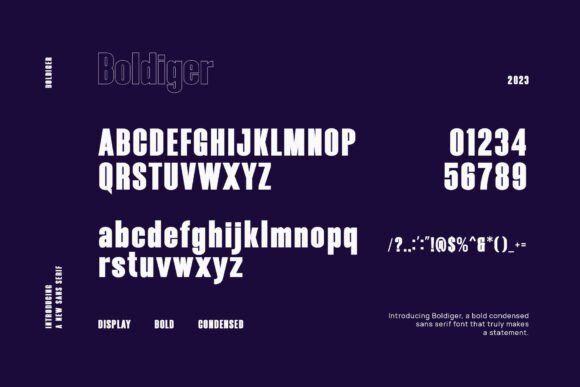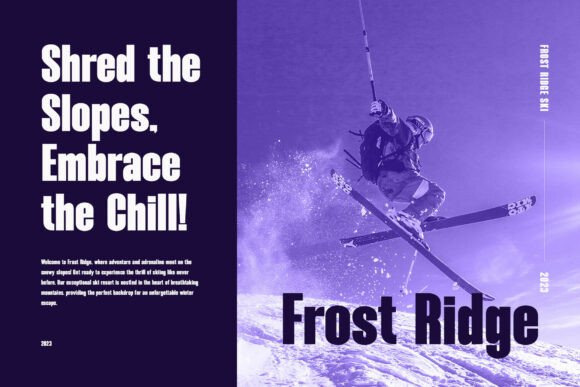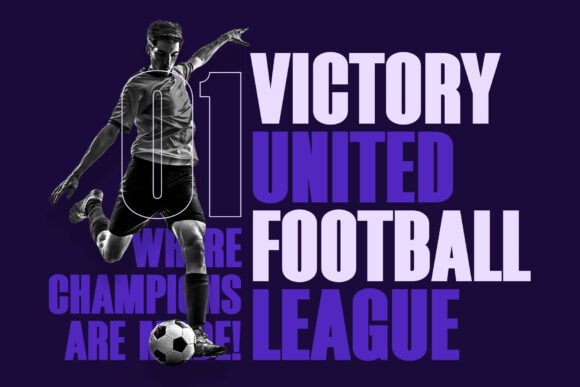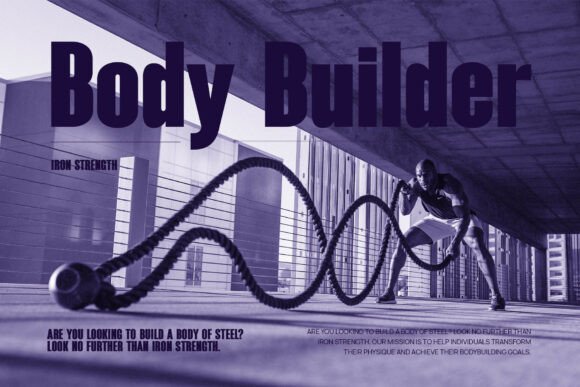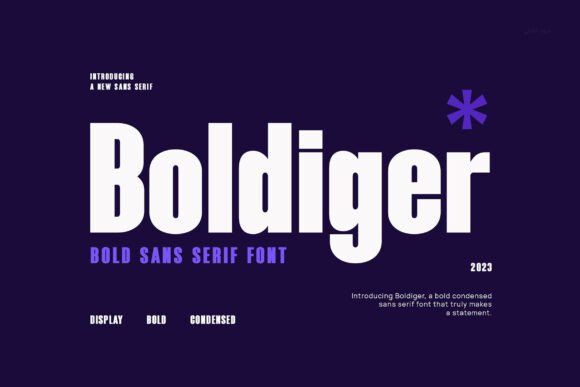
Introducing Boldiger Font: The Ultimate Choice for Impactful Designs
In the world of typography, fonts play a crucial role in conveying messages and making a lasting impression. For designers and crafters looking to add a bold statement to their work, the Boldiger font is an excellent choice. This bold and condensed sans serif font is specifically designed to grab attention, making it perfect for impactful headlines, branding, and posters.
The Power of Boldiger Font
Boldiger’s heavy structure and tight spacing make it a force to be reckoned with in the world of typography. Its bold and condensed design allows it to stand out in any design, adding energy and strength to your work. Whether you’re working on digital campaigns or creating bold packaging, Boldiger is the perfect font to make your message heard.
Key Features of Boldiger Font
- Bold and Condensed Design: Boldiger’s unique design makes it perfect for headlines, titles, and short phrases that require a strong impact.
- Heavy Structure: The font’s heavy structure gives it a robust and sturdy feel, making it ideal for designs that require a sense of strength and power.
- Tight Spacing: The tight spacing between letters adds to the font’s condensed feel, making it perfect for designs where space is limited.
- Sans Serif: The font’s sans serif design gives it a clean and modern look, making it perfect for digital and print designs.
Use Cases for Boldiger Font
Boldiger font is versatile and can be used in various design projects, including:
- Impactful Headlines: Use Boldiger to create bold and attention-grabbing headlines that make a statement.
- Branding: Boldiger is perfect for creating strong and recognizable brand identities that leave a lasting impression.
- Posters: The font’s bold design makes it ideal for creating eye-catching posters that grab attention.
- Digital Campaigns: Use Boldiger to add energy and strength to your digital campaigns, including social media posts, email marketing, and website headers.
- Packaging: Boldiger is perfect for creating bold and eye-catching packaging that stands out on store shelves.
Tips for Using Boldiger Font
To get the most out of Boldiger font, here are some tips to keep in mind:
- Use it sparingly: Boldiger is a bold font, so use it sparingly to avoid overwhelming your design.
- Pair it with a simple font: Pair Boldiger with a simple font to create contrast and make your design more readable.
- Experiment with colors: Boldiger looks great in bold colors, so experiment with different colors to find the one that works best for your design.
In conclusion, Boldiger font is a powerful and versatile font that can add energy and strength to your designs. Its bold and condensed design makes it perfect for impactful headlines, branding, and posters. With its heavy structure and tight spacing, Boldiger is the ultimate choice for designers and crafters looking to make a statement. So why not give Boldiger a try and see how it can elevate your designs?